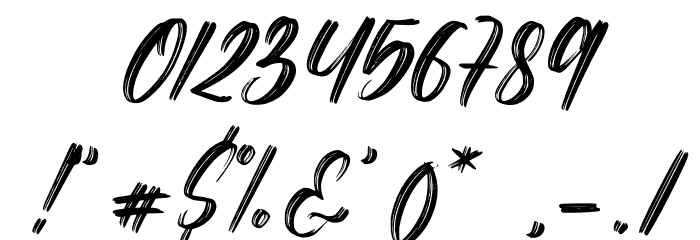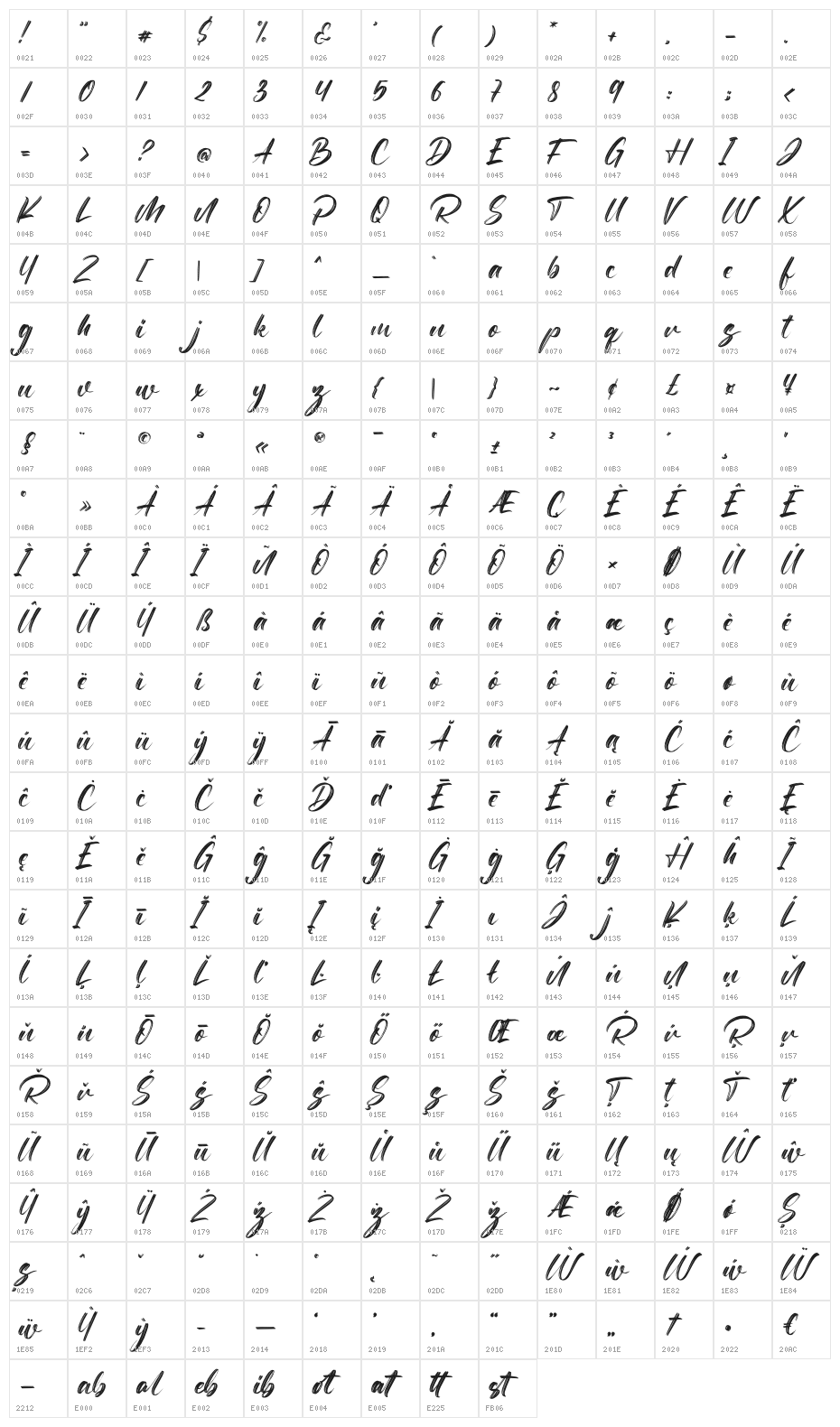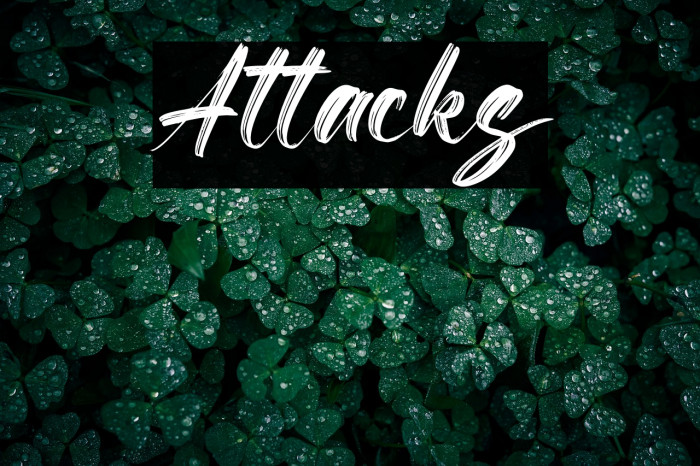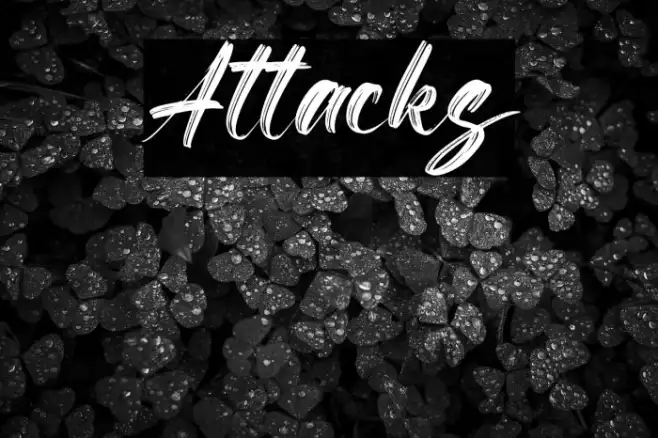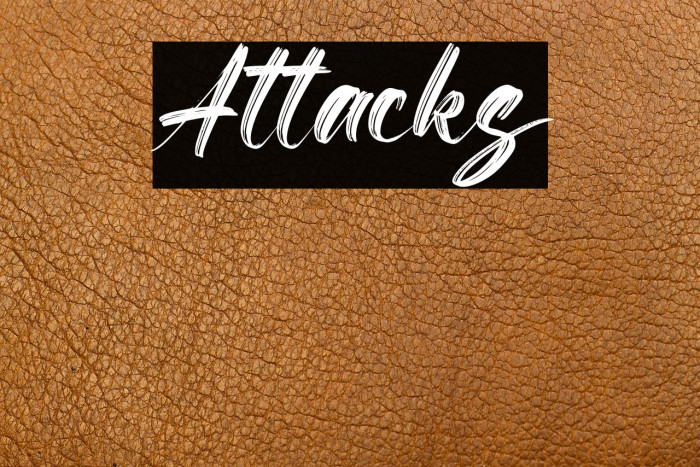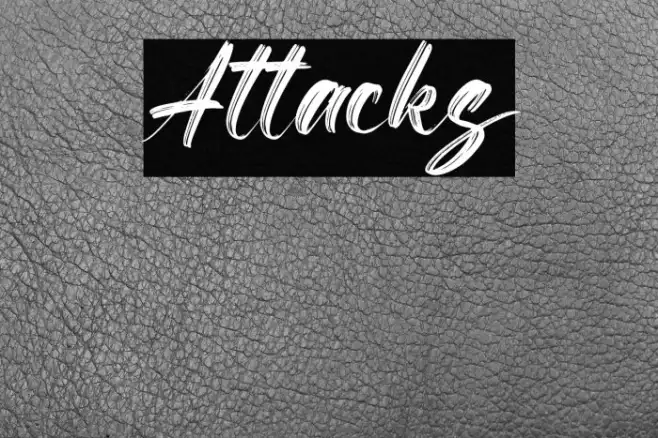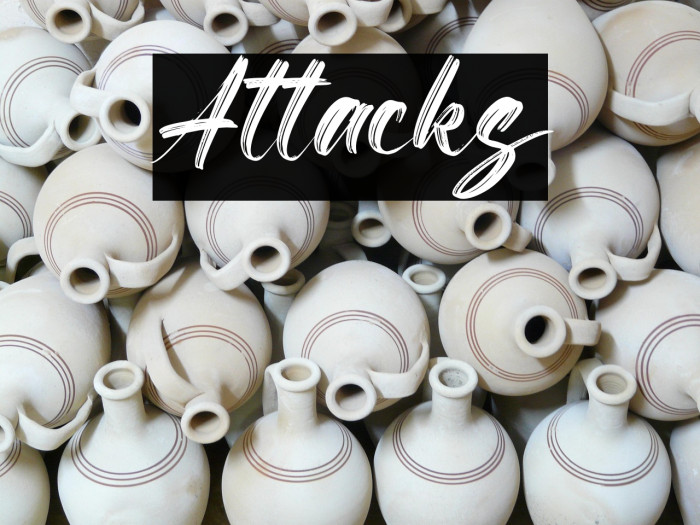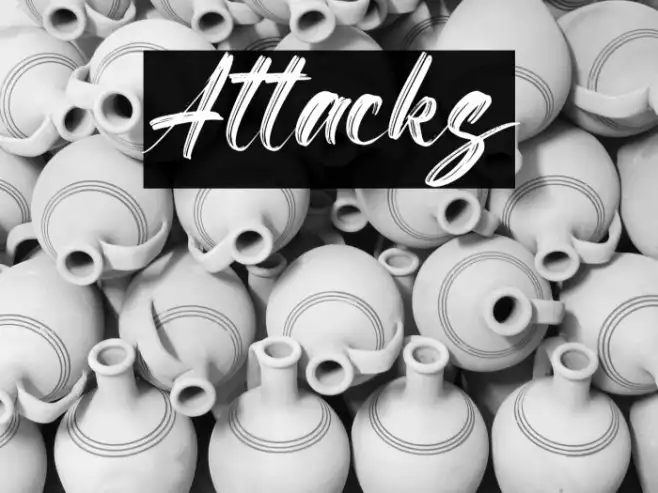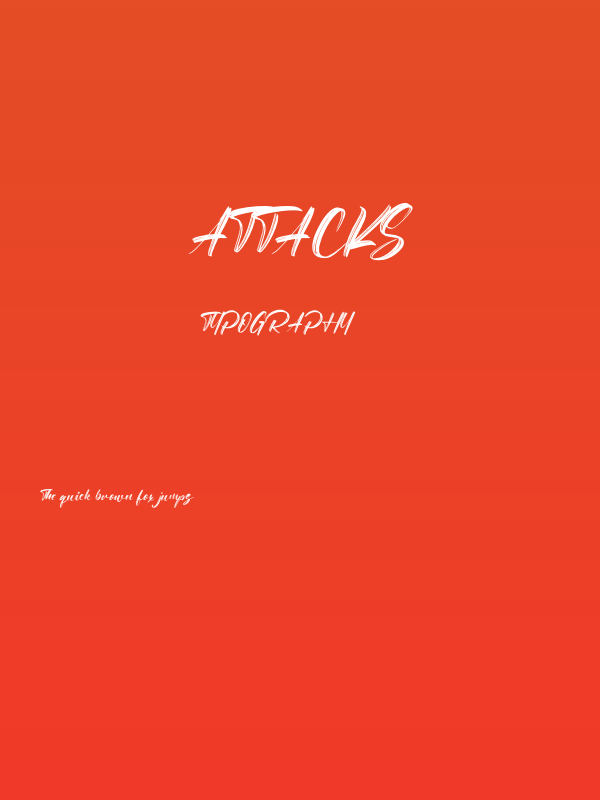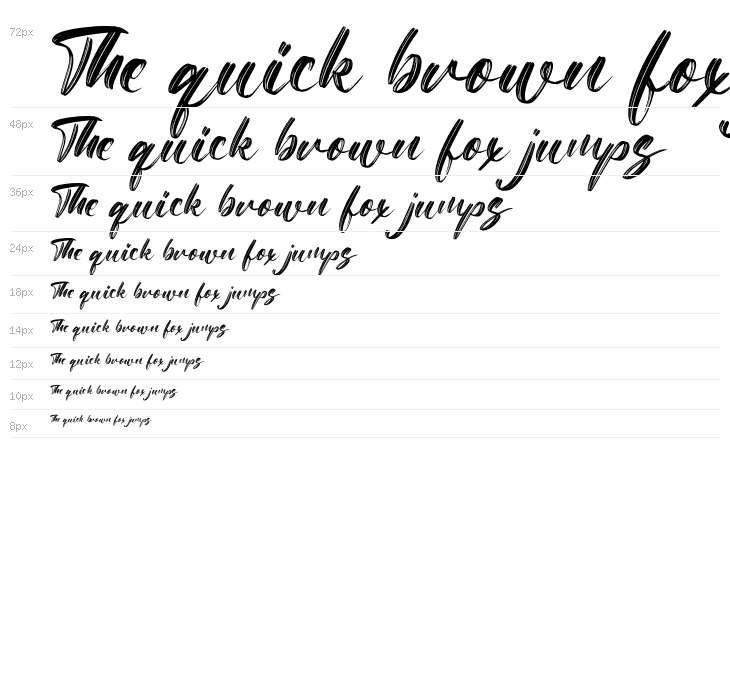
Attacks Font
Attacks Description
This font features a dynamic and energetic script style, characterized by its bold and expressive strokes. The letters are fluid and connected, giving a sense of motion and spontaneity. The uppercase letters are slightly more angular, while the lowercase letters maintain a smooth, cursive flow. The numbers and special characters are consistent with the overall style, adding a playful yet sophisticated touch. This font is ideal for projects that require a personal and artistic flair, such as invitations, branding, and creative headlines.
| Use Case | Headlines, Logos, Artistic projects |
| Proposed Projects | Ideal for invitations, branding, creative headlines, and artistic projects. |